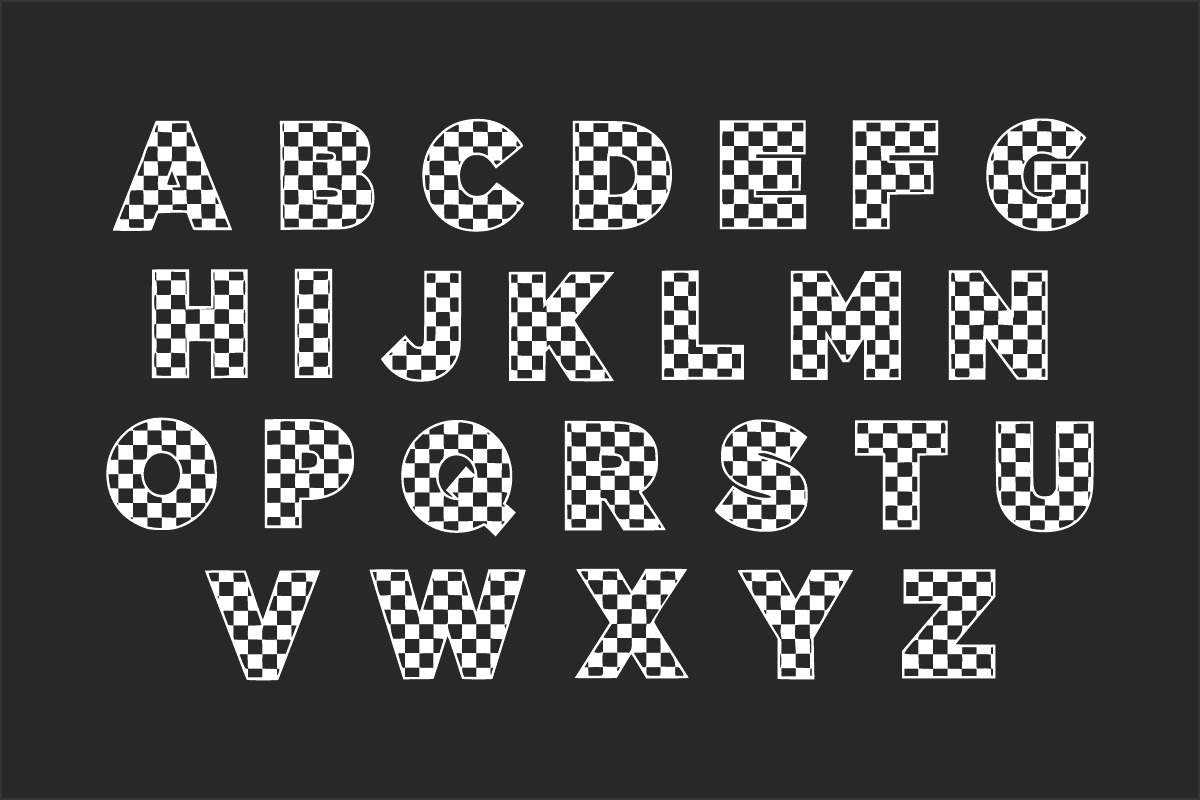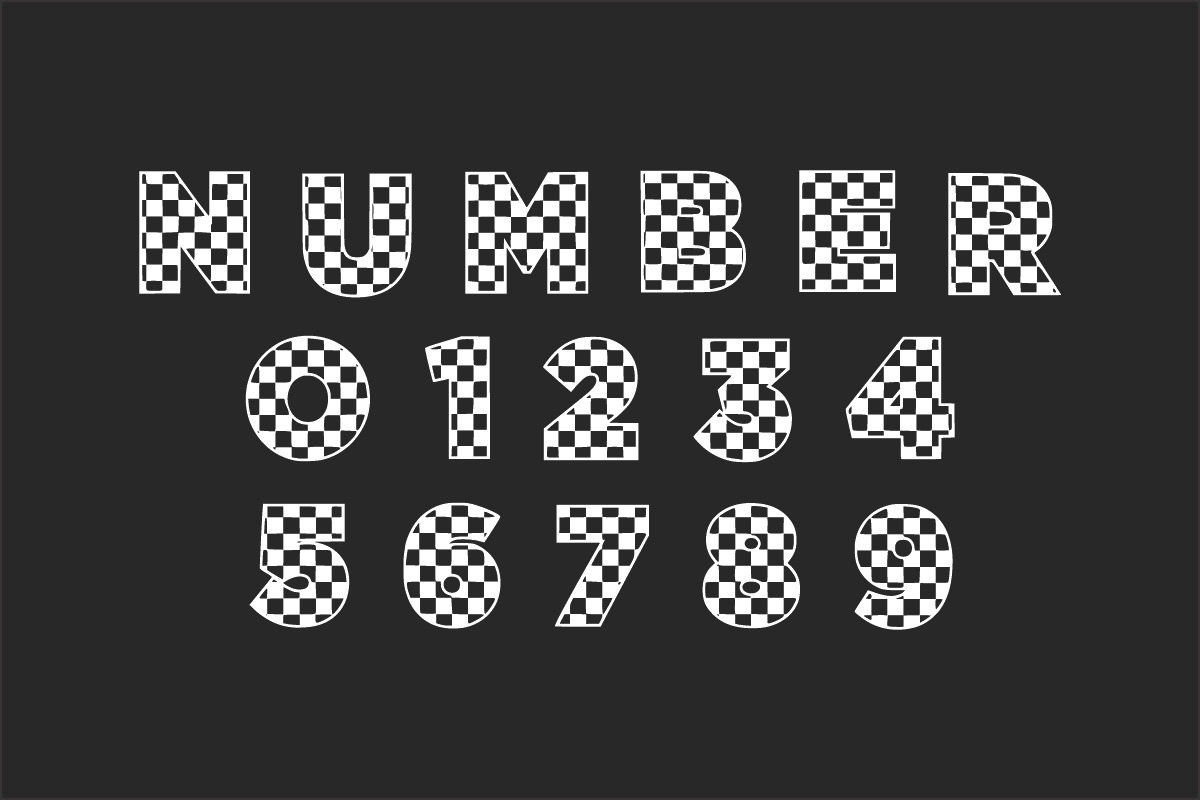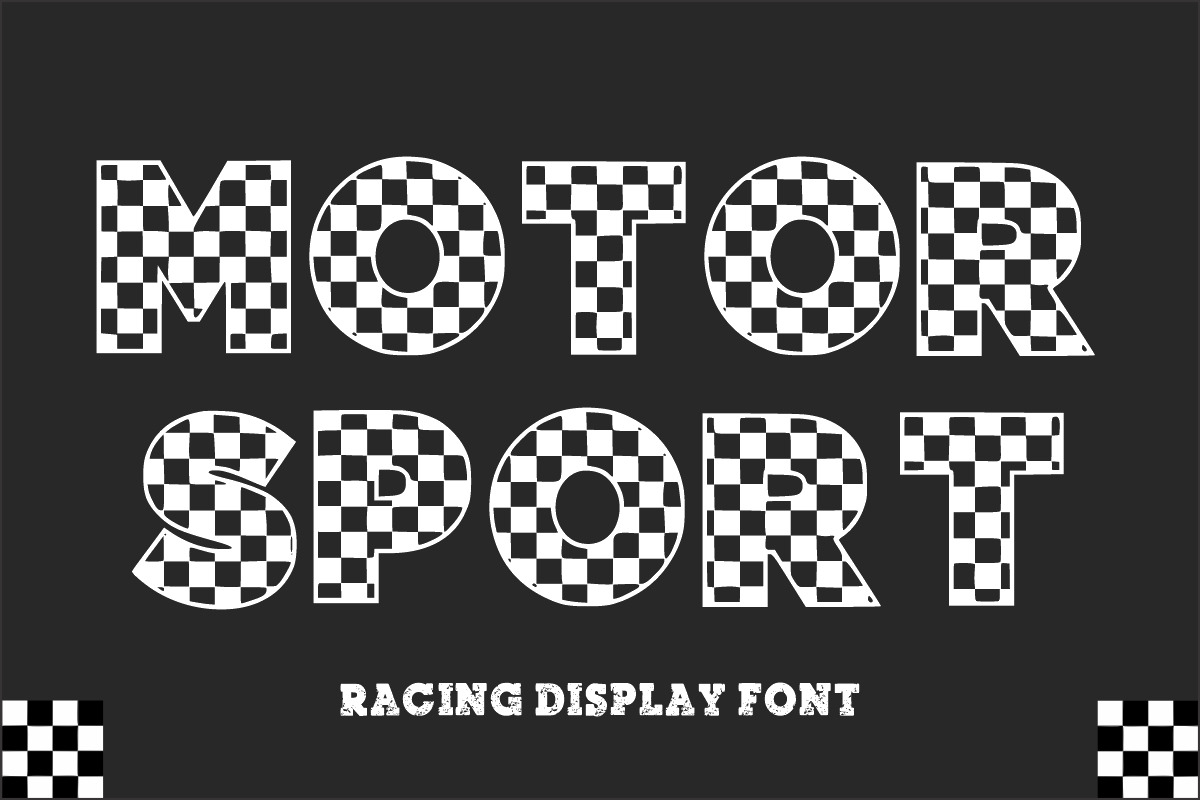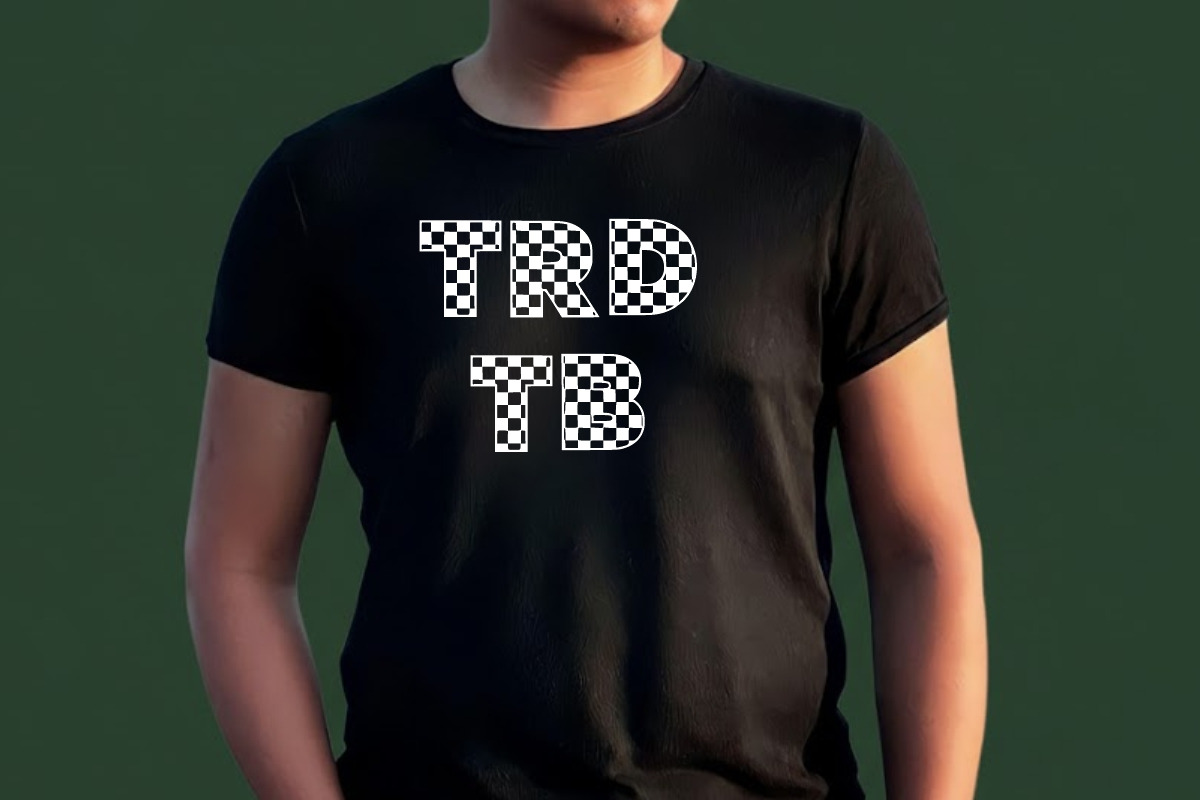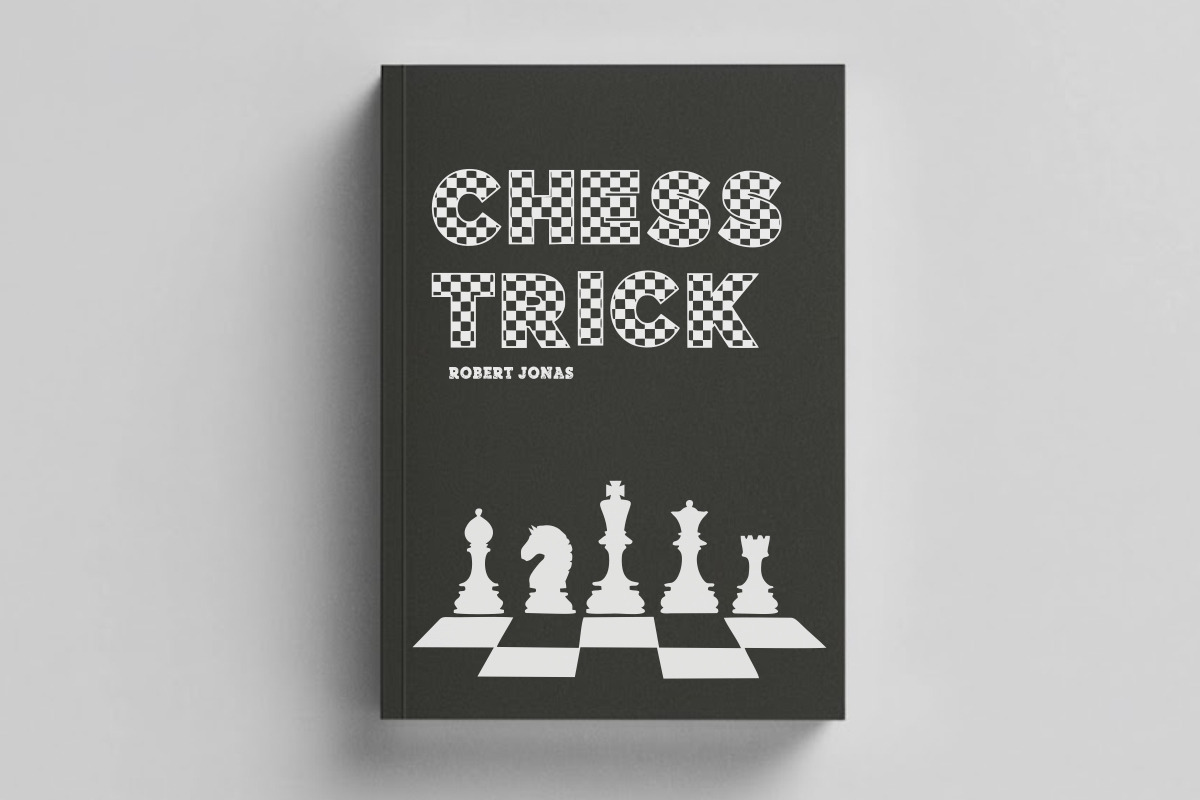
Motor Sport – Racing Font
Sporty Racing is a bold and energetic racing display font inspired by classic motorsport and checkered flag patterns. The distinctive checkered style gives it a fast, sporty, and competitive feel, making it perfect for racing themes, automotive designs, sports branding, posters, logos, t-shirt designs, and event graphics. Sporty Racing adds speed, excitement, and a dynamic racing vibe to any creative project.